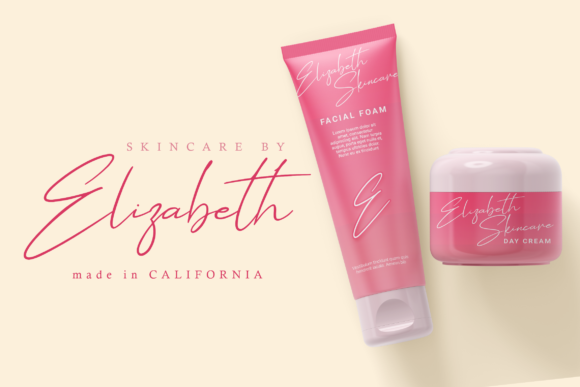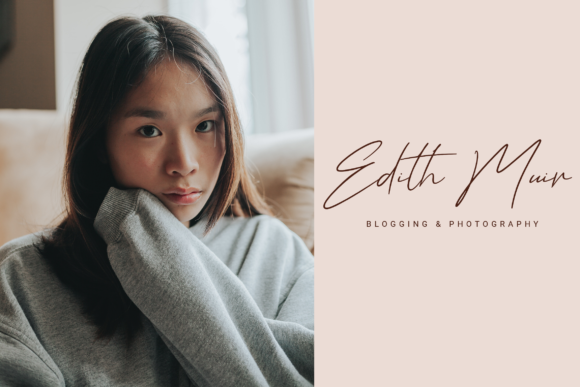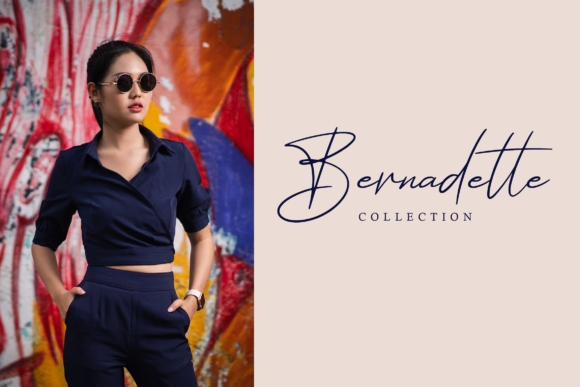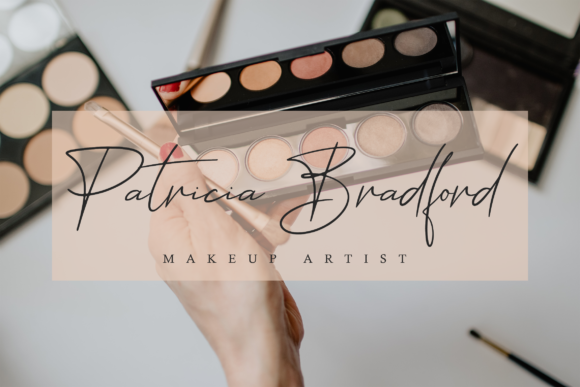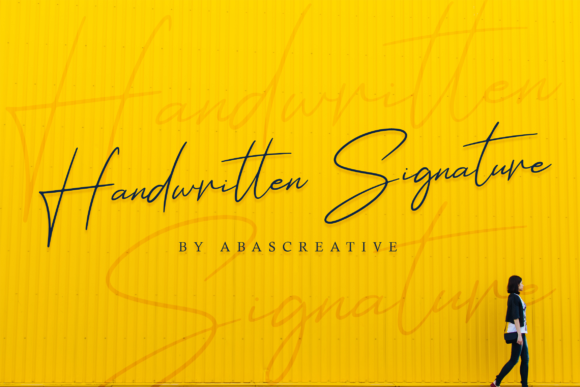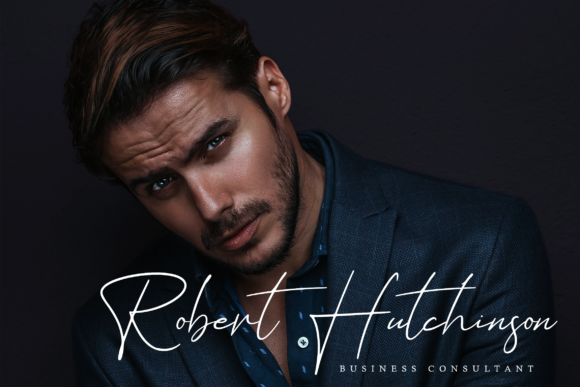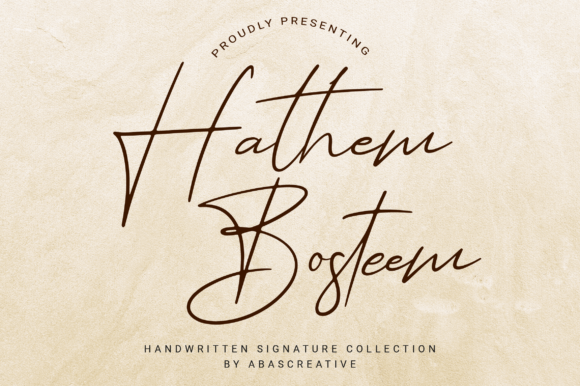
Discover the Charm of Hathem Bosteem Font: Elevate Your Designs with its Unique Flair
Are you on the hunt for a font that exudes elegance, sophistication, and a touch of playfulness? Look no further than the Hathem Bosteem Font. This gorgeous, relaxed handwritten font is quickly becoming a favorite among designers and crafters alike, and for good reason. Its versatile style and authentic feel make it the perfect choice for a wide range of projects, from wedding invitations and stationary art to social media posts and greeting cards.
The Allure of Hathem Bosteem Font
Hathem Bosteem Font is more than just a font – it’s an experience. Its unique, handwritten style is reminiscent of a warm summer day, evoking feelings of comfort and joy. The font’s relaxed, effortless vibe makes it perfect for designers who want to add a personal touch to their work. Whether you’re creating a romantic wedding invitation or a fun social media post, Hathem Bosteem Font is sure to make your design stand out.
What Makes Hathem Bosteem Font So Special?
So, what sets Hathem Bosteem Font apart from other fonts on the market? Here are just a few of its standout features:
• Unique Handwritten Style: Hathem Bosteem Font boasts a one-of-a-kind, handwritten style that’s both elegant and playful.
• Versatile: This font can be used for a wide range of projects, from formal wedding invitations to casual social media posts.
• Easy to Read: Despite its unique style, Hathem Bosteem Font is incredibly easy to read, making it perfect for body text and headlines.
• Authentic Feel: This font has a genuine, homemade feel that’s sure to resonate with your audience.
Ideas for Using Hathem Bosteem Font
Now that you’re familiar with the Hathem Bosteem Font, let’s explore some ideas for using it in your designs:
• Wedding Invitations: Create stunning wedding invitations that set the tone for a romantic and unforgettable celebration.
• Stationary Art: Add a personal touch to your stationery with Hathem Bosteem Font, perfect for letters, cards, and more.
• Social Media Posts: Make your social media posts stand out with this eye-catching font, perfect for promotions, announcements, and more.
• Greeting Cards: Create adorable greeting cards for special occasions, such as birthdays, holidays, and anniversaries.
Tips for Getting the Most Out of Hathem Bosteem Font
To truly make the most of Hathem Bosteem Font, here are a few tips to keep in mind:
• Experiment with Colors: Pair Hathem Bosteem Font with a range of colors to create unique and eye-catching designs.
• Play with Sizes: Use Hathem Bosteem Font in a variety of sizes to add visual interest to your designs.
• Mix and Match: Combine Hathem Bosteem Font with other fonts and design elements to create truly show-stopping designs.
In conclusion, Hathem Bosteem Font is a true gem in the world of typography. Its unique, handwritten style and versatile nature make it the perfect choice for designers and crafters looking to add a personal touch to their work. Whether you’re creating wedding invitations, stationary art, social media posts, or greeting cards, Hathem Bosteem Font is sure to elevate your designs and leave a lasting impression on your audience.
So why wait? Fall in love with Hathem Bosteem Font and discover a world of creative possibilities. Get ready to take your designs to the next level with this gorgeous, relaxed handwritten font.